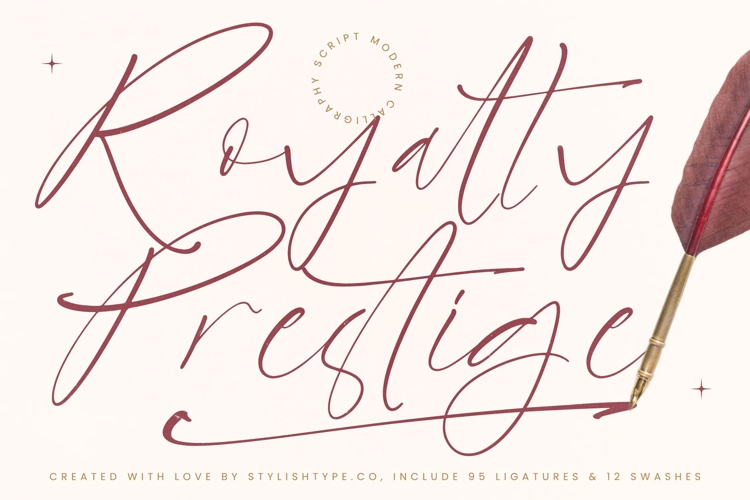
Royalty Prestige - Modern Calligraphy Script
Unlock creative freedom with a comprehensive set of ligatures and decorative swashes that allow for a truly custom appearance. The package is fully optimized with multilingual support and international characters, including various alternates to ensure your global designs remain unique and versatile.